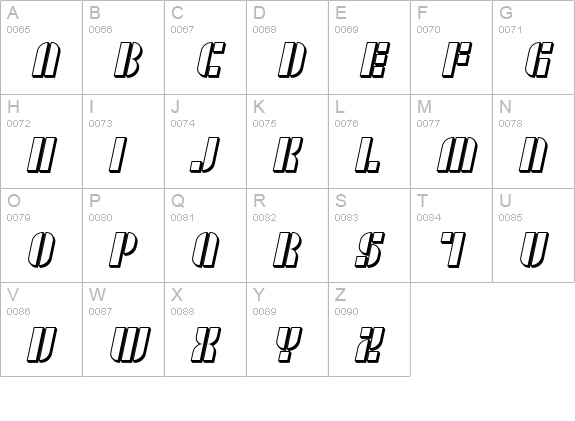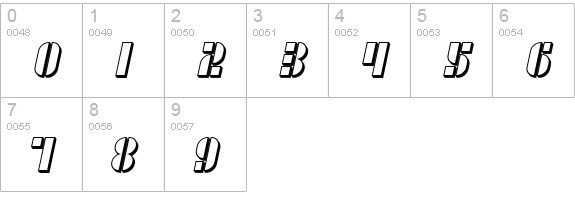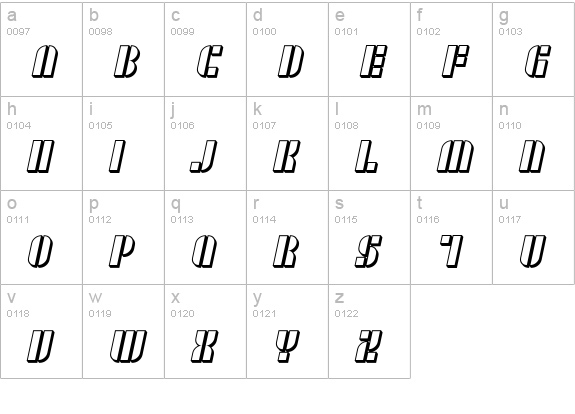
SF RetroSplice SC Shaded Font Details
SF RetroSplice SC Shaded is a stunning display font that effortlessly captures the essence of retro design. Drawing inspiration from the bold and vibrant styles of the past, this font is a perfect choice for any project seeking to evoke nostalgia and a sense of vintage flair. With its unique shading and distinctive letterforms, SF RetroSplice SC Shaded adds a touch of depth and dimension to your designs. Each character is meticulously crafted, showcasing intricate details and an undeniable charm that will surely captivate your audience. This font is not only visually appealing but also incredibly versatile. Whether you're designing a poster, a logo, or even a website, SF RetroSplice SC Shaded will bring your creations to life with its timeless appeal. Its bold and confident letterforms demand attention, making it an ideal choice for headlines and titles. The best part? SF RetroSplice SC Shaded is freely available to download at FontsMarket.com. Yes, you read that right - this remarkable font can be yours without spending a dime. Now you can enhance your designs with a touch of retro elegance without breaking the bank. So, why wait? Embrace the nostalgia and download SF RetroSplice SC Shaded today. Let this font transport you to a bygone era while adding a modern twist to your creative projects. Whether you're a professional designer or a hobbyist, this font is sure to become a valuable addition to your font library.